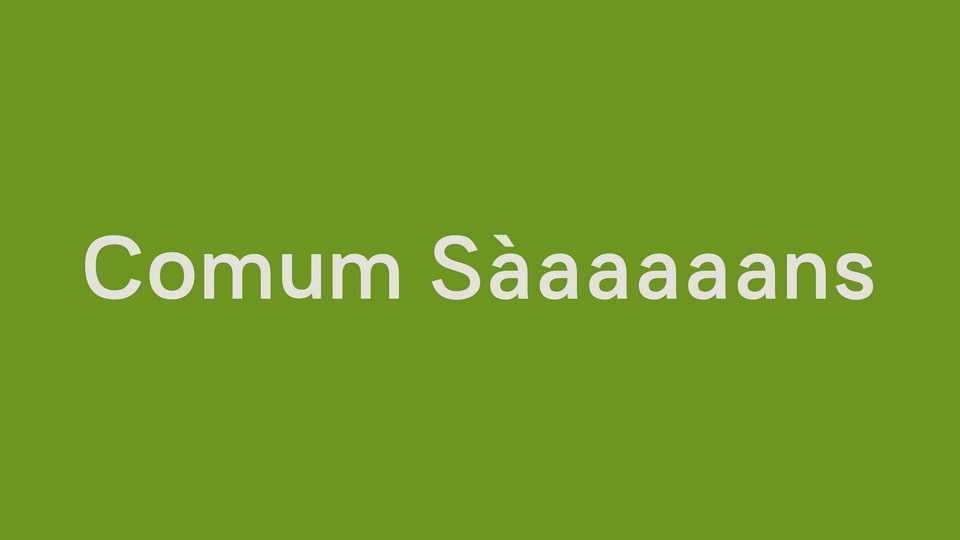
Download Comum Sans font, a sans-serif typeface inspired by lettering found in popular urban prints, such as wheatpaste posters, street posters, and storefront signage.